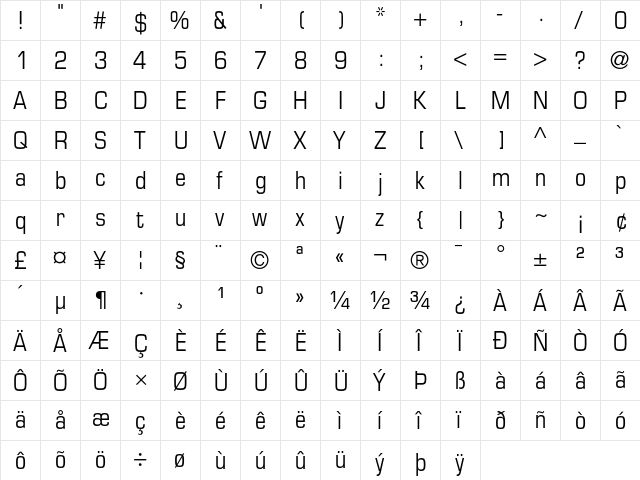
Eurostile Condensed
Design Context for Eurostile Typeface
Eurostile offers clean, dependable letterforms without strong stylistic allegiance, making it a practical choice for designers who need flexibility. Its narrow stance lets it pack a punch even in space-constrained designs.
Pro Tip: Use Eurostile in both headline and body roles to test its range before committing to a single application.